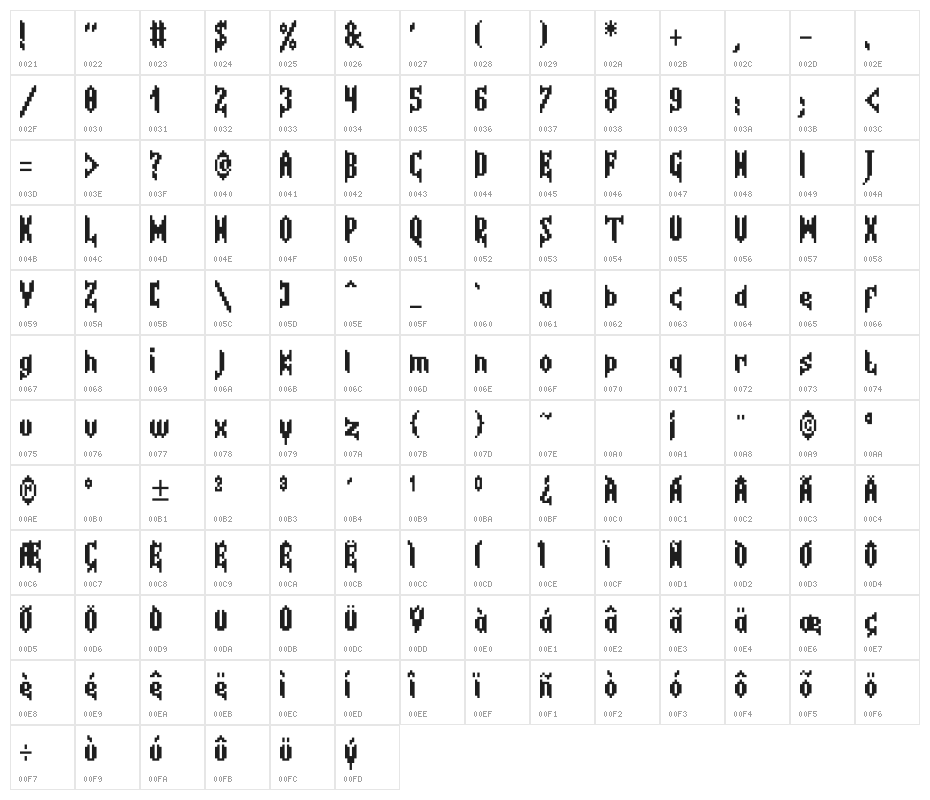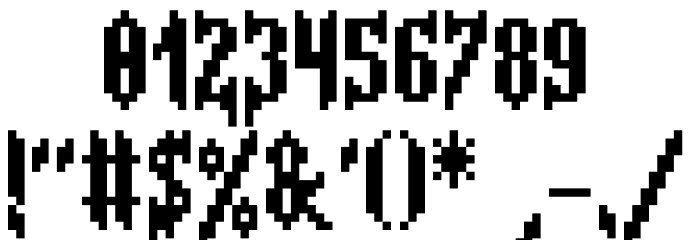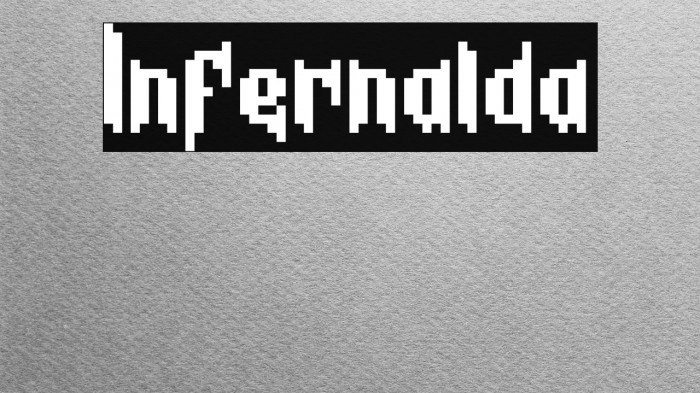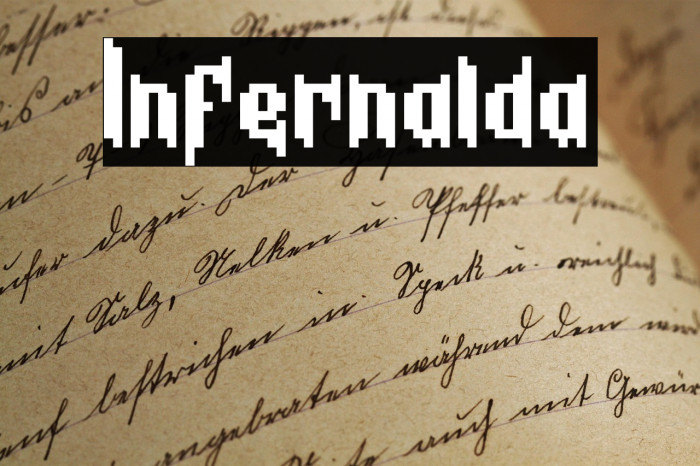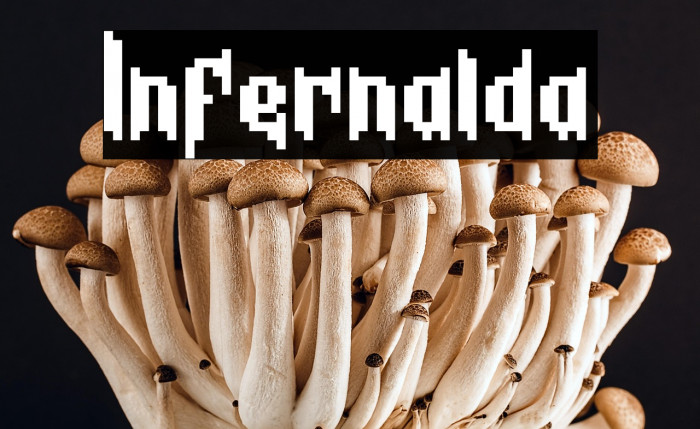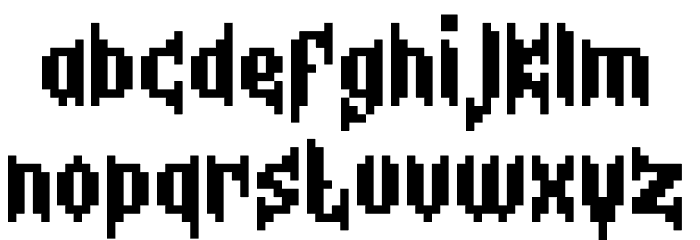
Infernalda Font
This font features a bold and jagged design, reminiscent of pixel art or retro video game aesthetics. The characters are blocky with sharp edges, giving a sense of ruggedness and intensity. The uppercase and lowercase letters maintain a consistent style, with the uppercase being slightly taller and more pronounced. Numbers and special characters follow the same angular and edgy design, ensuring uniformity across all glyphs. This font's unique style makes it stand out, ideal for projects that require a strong and distinctive visual impact.
| Overall Style | Retro, Edgy |
| Proposed Projects | Ideal for video game graphics, retro-themed posters, or edgy branding materials. |